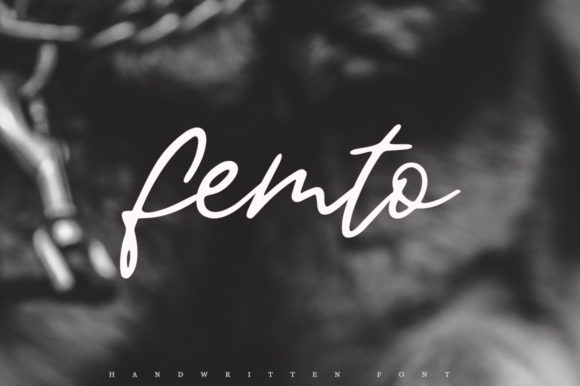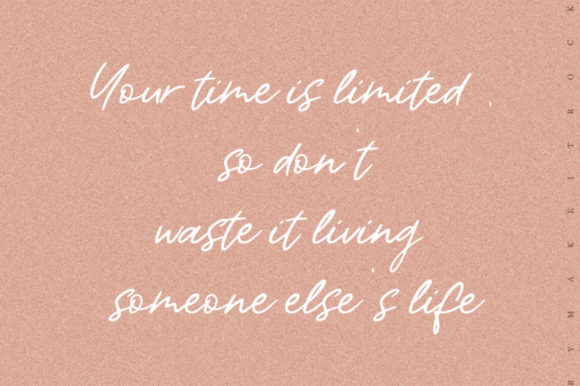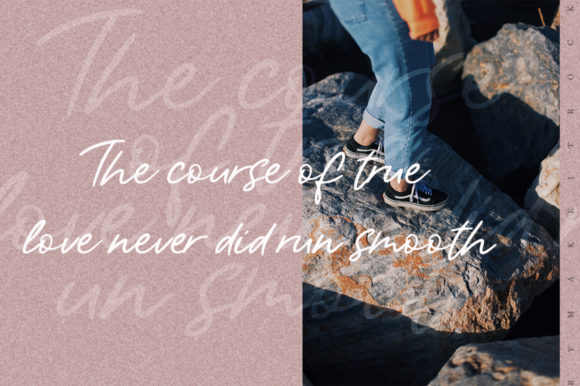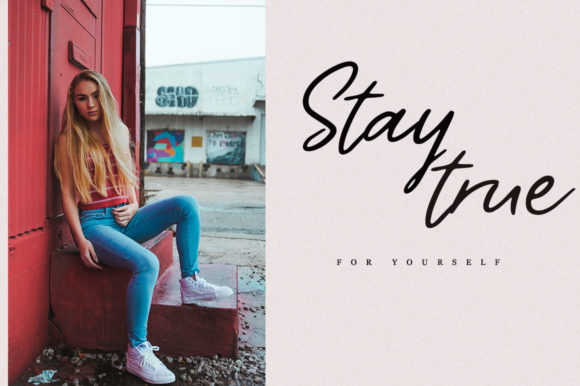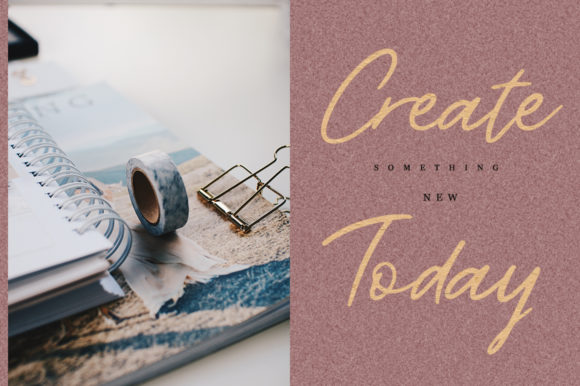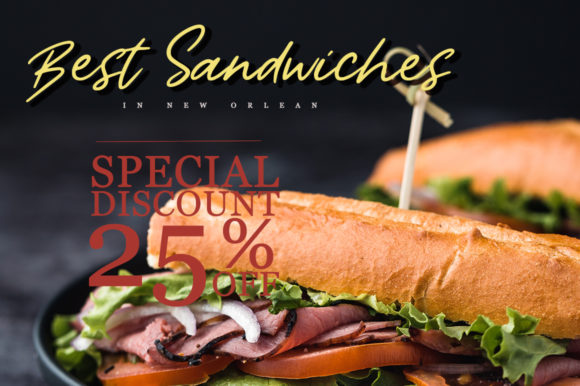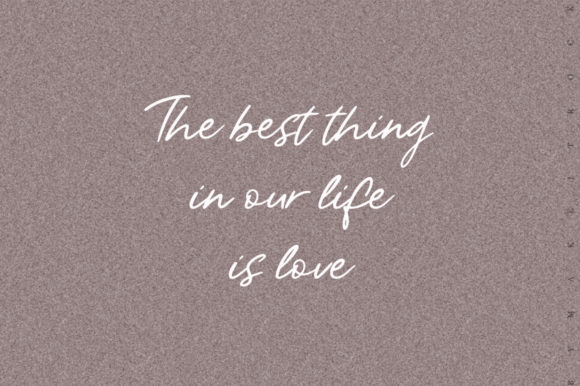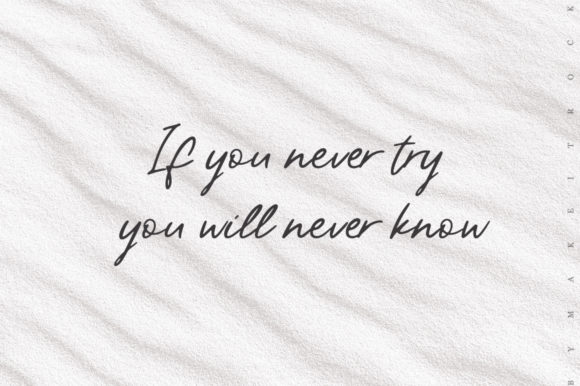
Femto Font
About Femto Font
Femto is a light and contemporary handwritten font with a unique spin. It will inspire any design idea with its bold elegance.